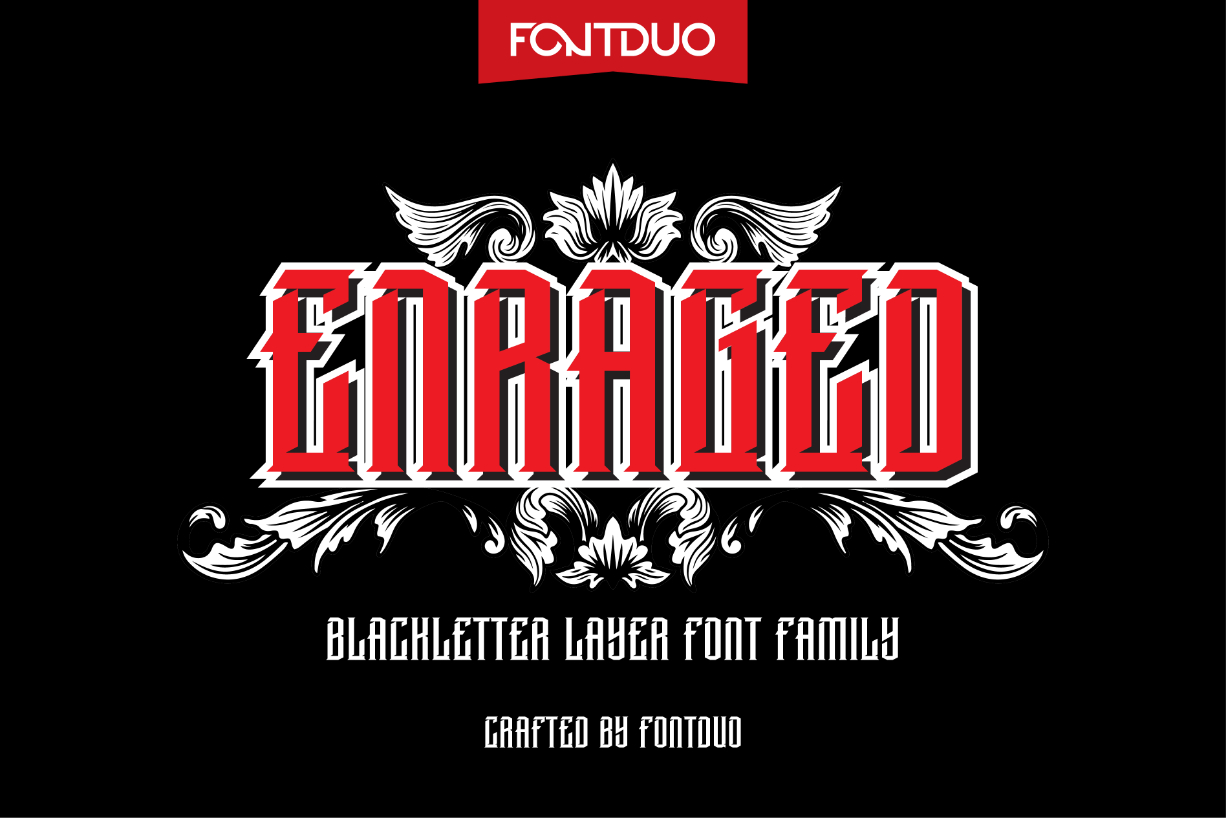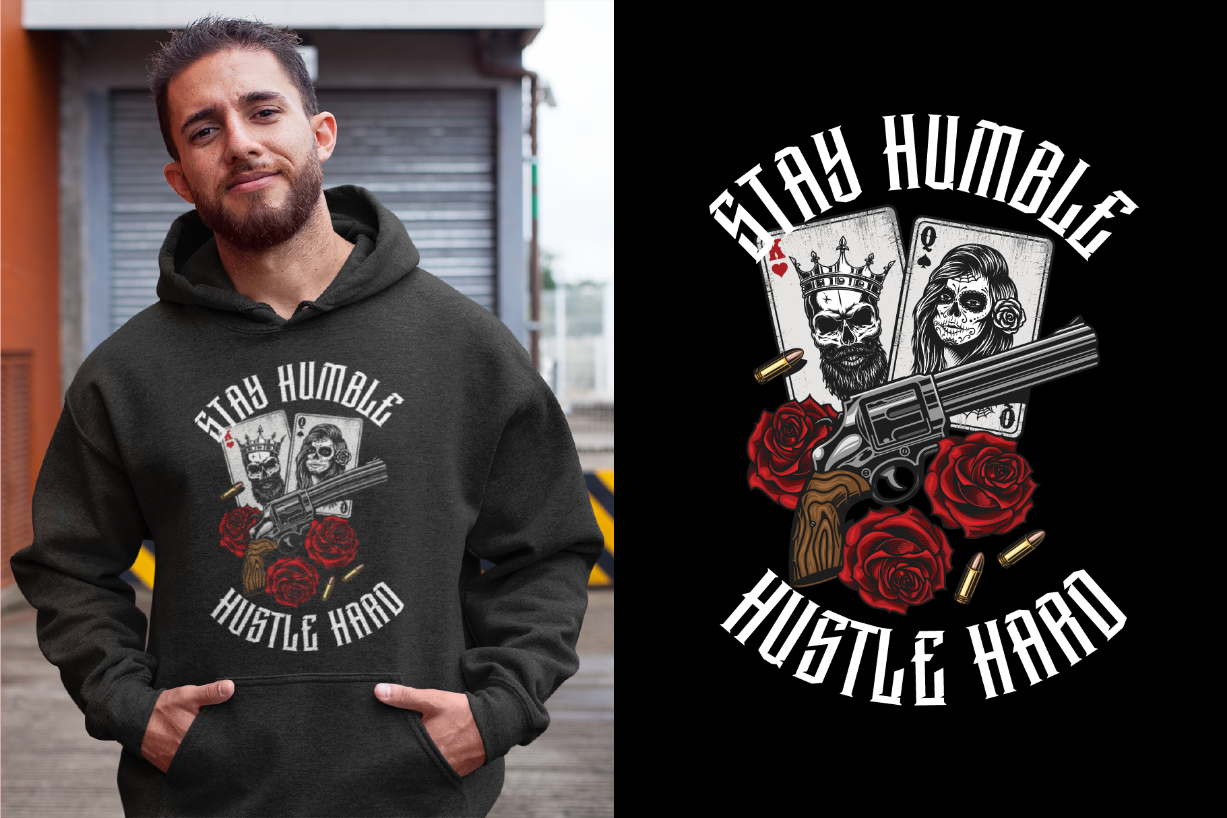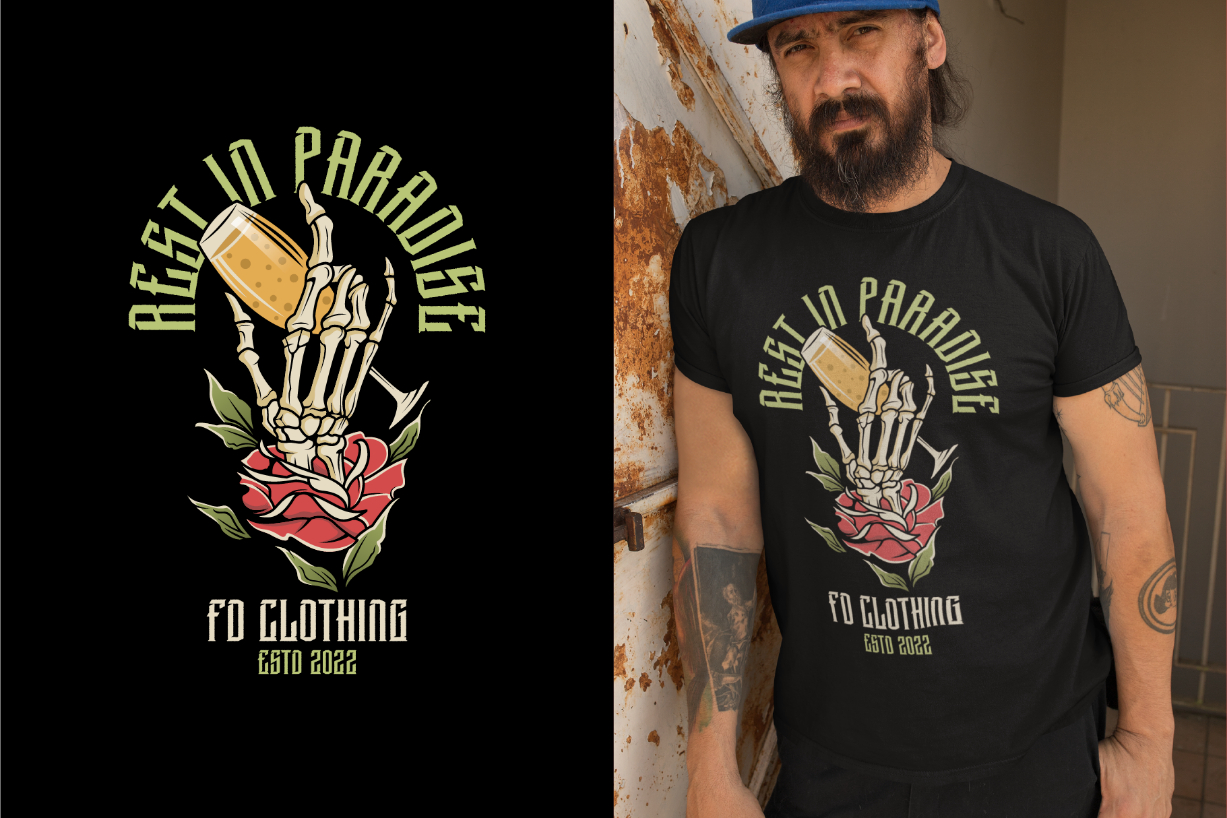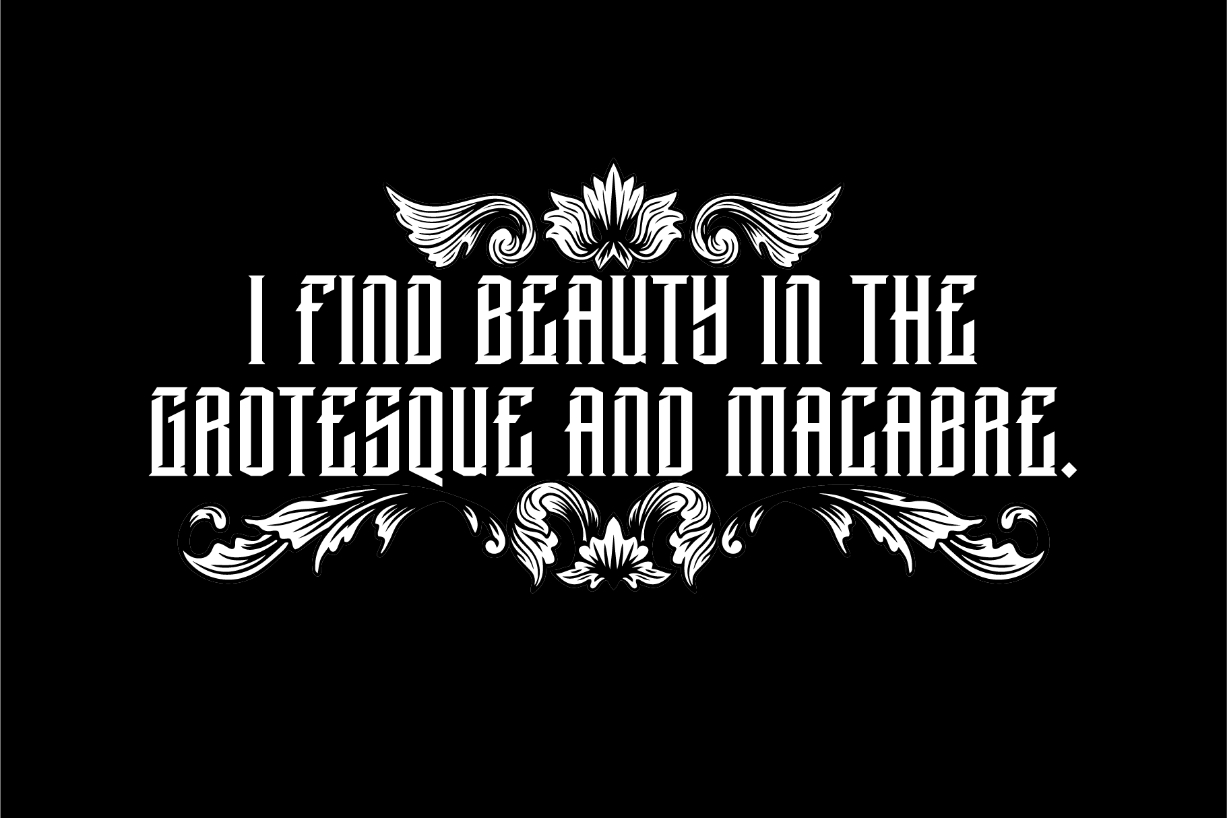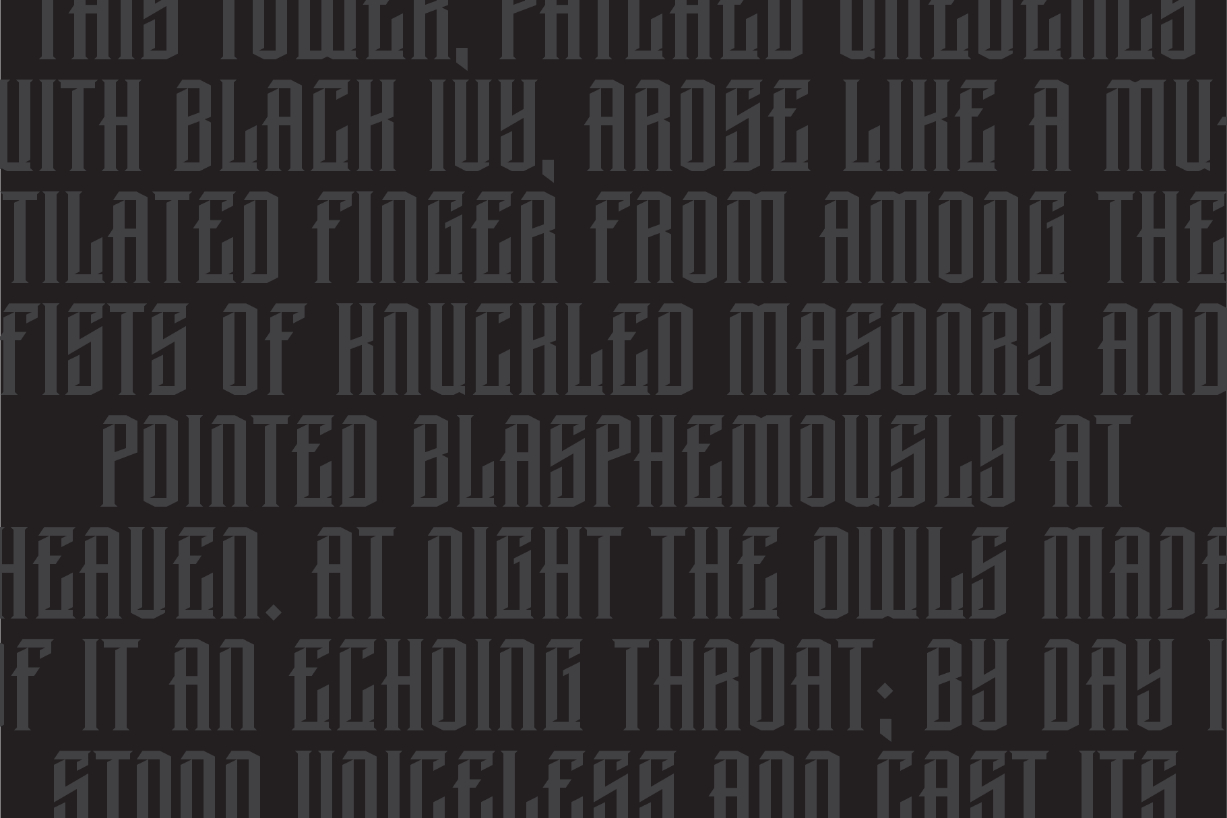
Enraged Font
About Enraged Font
Enraged is a cool and unique blackletter font that will impress with its stylish features. Use it for product packaging, branding, or other projects that need bold and daring typography!